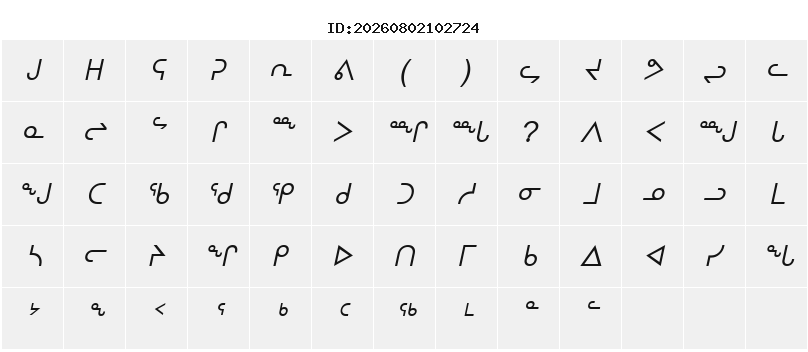
nunacom italic Preview
• Font Name: nunacom italic
About nunacom italic.ttf
nunacom italic.ttf is a modern, elegant sans-serif font designed for ultimate readability and visual harmony. Perfect for branding, headlines, web design, and print materials.